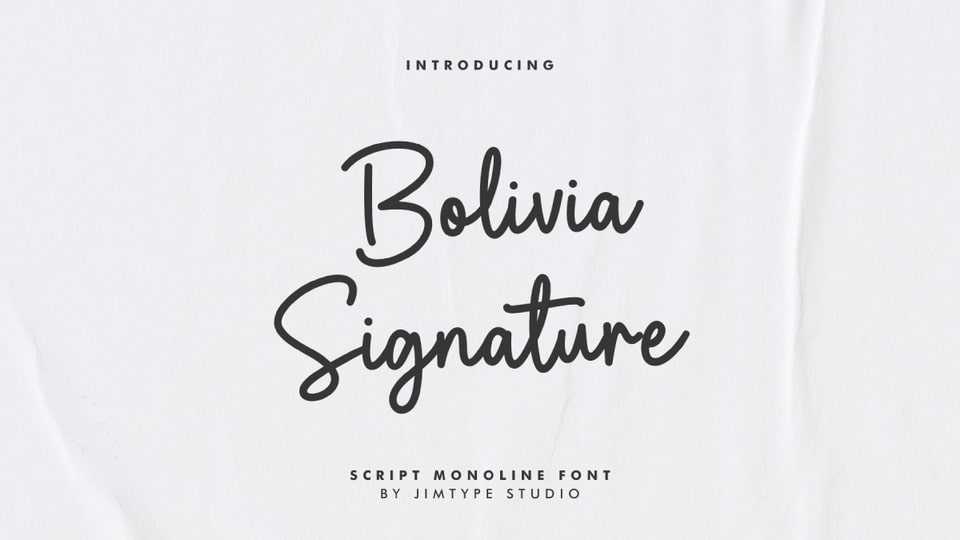
Download Bolivia Script font, a clean and casual typeface. This font is perfect for signature-style logos, display, branding, invitations, blogs, and planners.